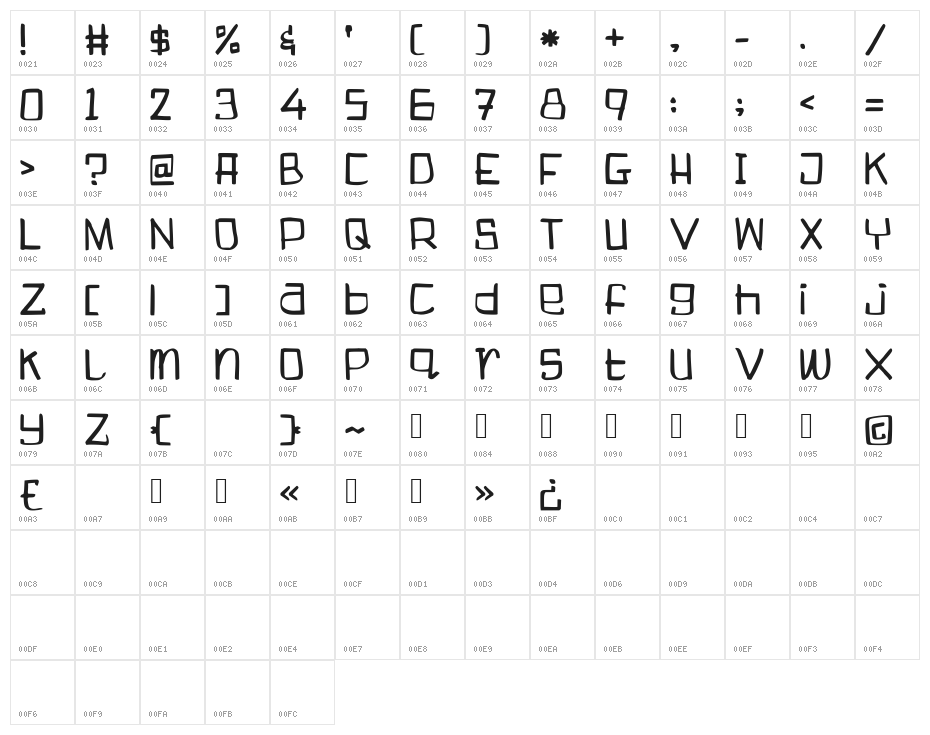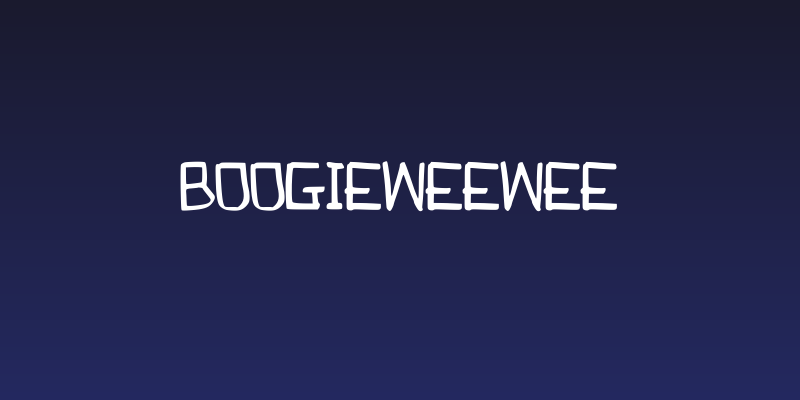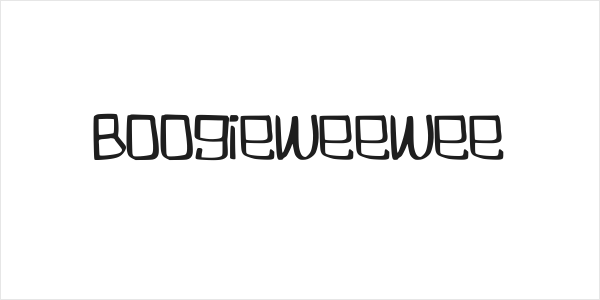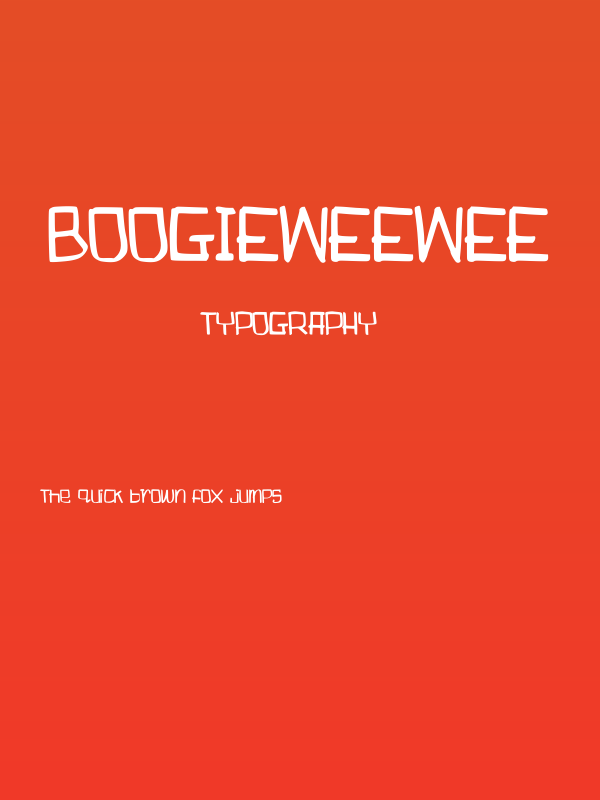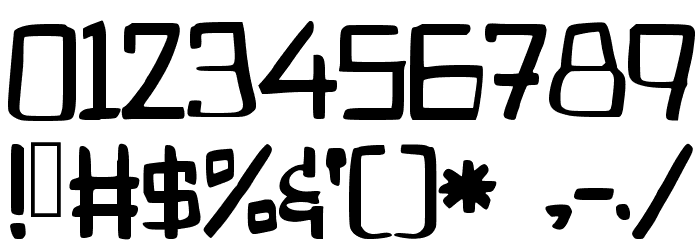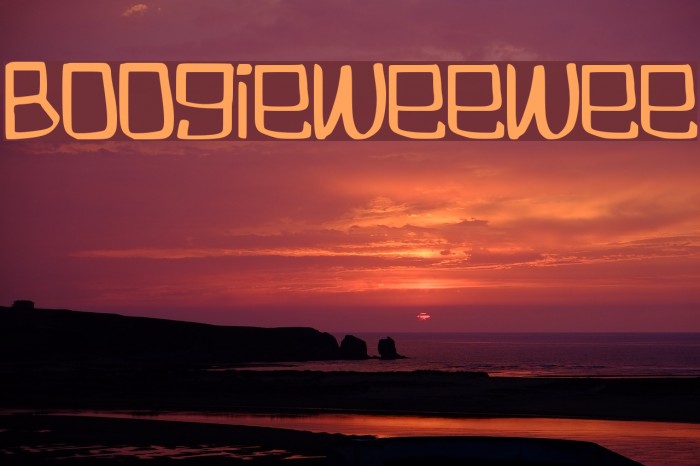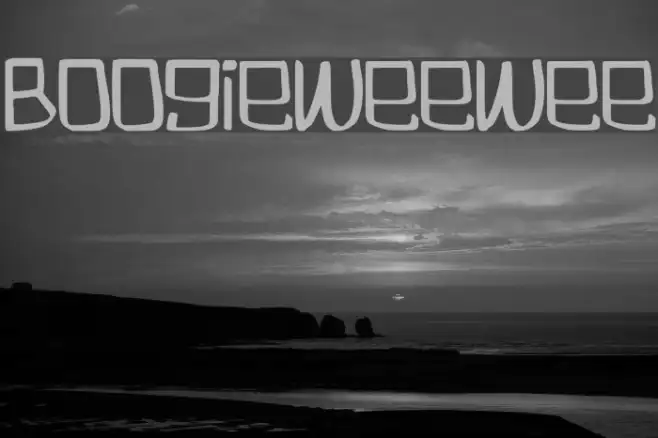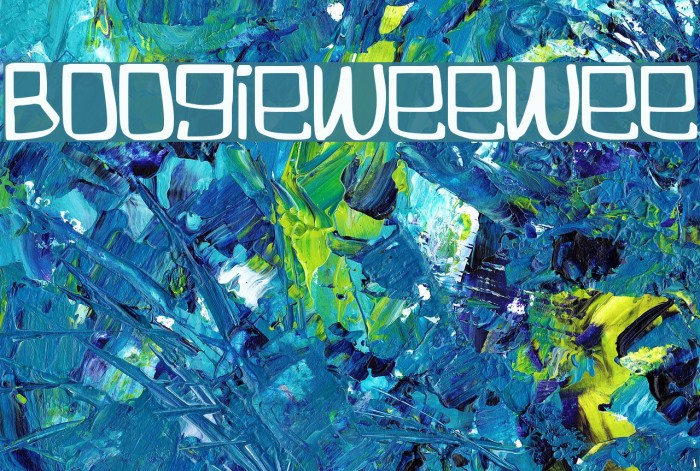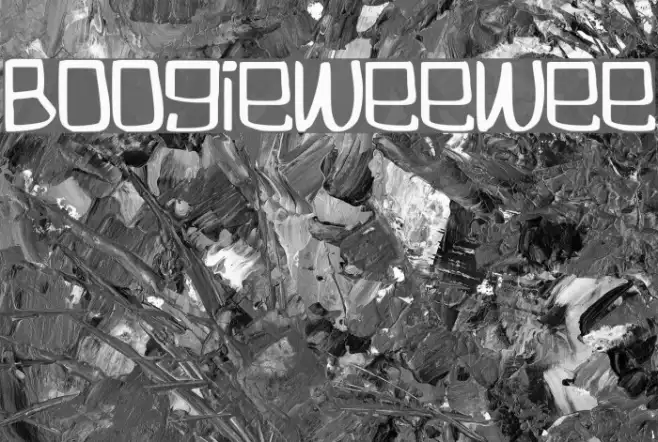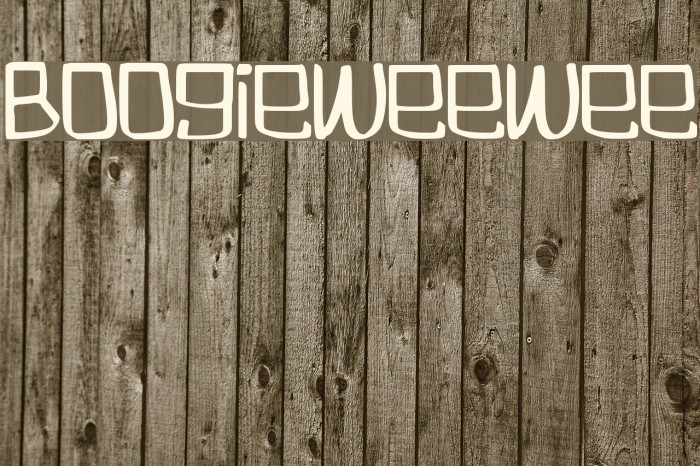
Boogieweewee Font
Boogieweewee Description
This font features a playful and quirky design, characterized by its rounded and slightly irregular letterforms. The uppercase and lowercase letters maintain a consistent style, with a hand-drawn appearance that adds a touch of whimsy. The numbers and special characters follow the same playful aesthetic, making the font suitable for creative and informal projects. The strokes are moderately thick, providing good readability while maintaining a casual vibe. The overall design is unique and eye-catching, perfect for projects that require a fun and engaging typeface.
| Overall Style | Playful, Quirky |
| Proposed Projects | Ideal for children's books, party invitations, playful branding, and creative posters. |